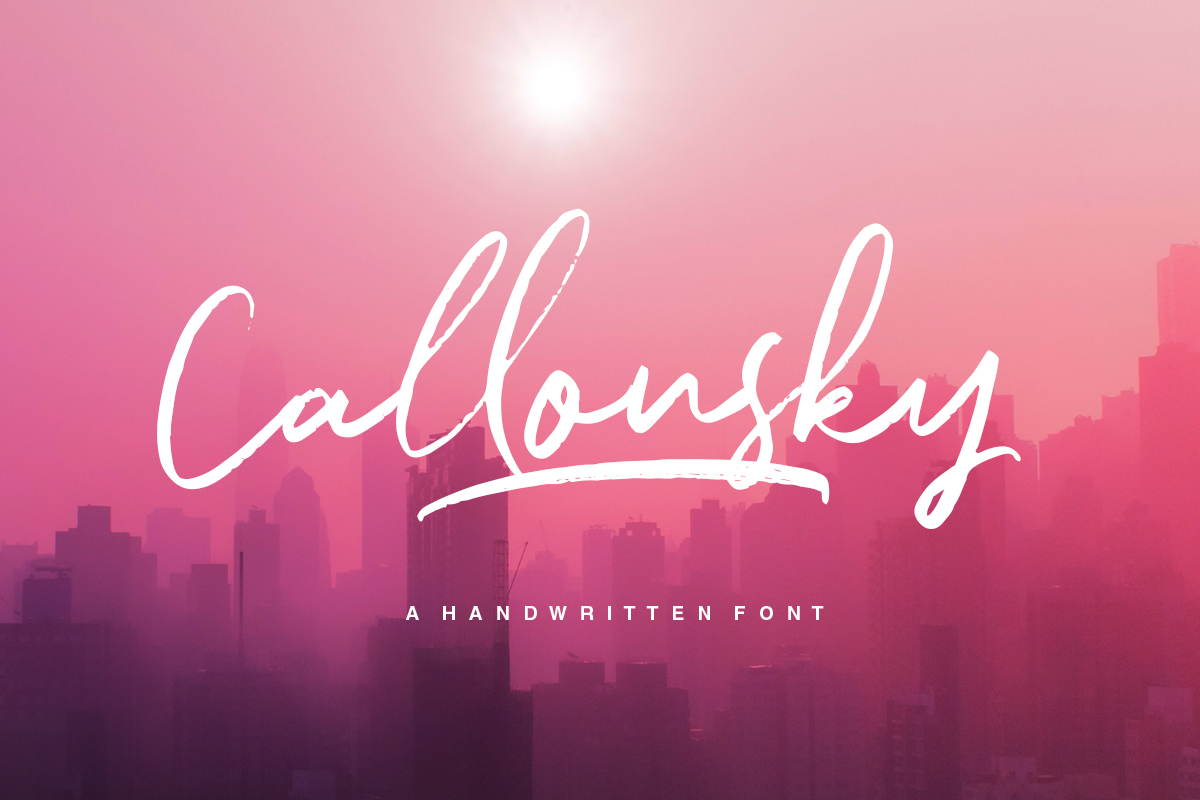
Callonsky Font
Perfect for wedding invitations, branding, greeting cards, logos, product packaging, and social media graphics.
The Callonsky Font excites designers with its elegant handwritten style, flowing curves, and romantic charm that add a personal, artistic touch to any project.
The Callonsky Font Free Download is a graceful script typeface designed to bring sophistication and warmth to your creative projects. Its smooth, natural strokes create a handwritten feel that’s ideal for invitations, personal branding, or boutique-style packaging. Whether you’re crafting a wedding stationery set or designing a stylish logo, Callonsky delivers timeless beauty.
One of the key strengths of Callonsky Font is its ability to balance elegance with legibility. Its well-formed letters ensure it remains clear and easy to read while still expressing a handwritten, personal touch.
In branding, Callonsky conveys intimacy, refinement, and creativity. It pairs beautifully with soft color palettes, delicate floral illustrations, and minimalist layouts, helping brands create a romantic and approachable identity.
For digital projects, this font enhances Instagram posts, Pinterest graphics, and website headers with its smooth, elegant character. Its timeless curves make your content stand out with charm and sophistication.